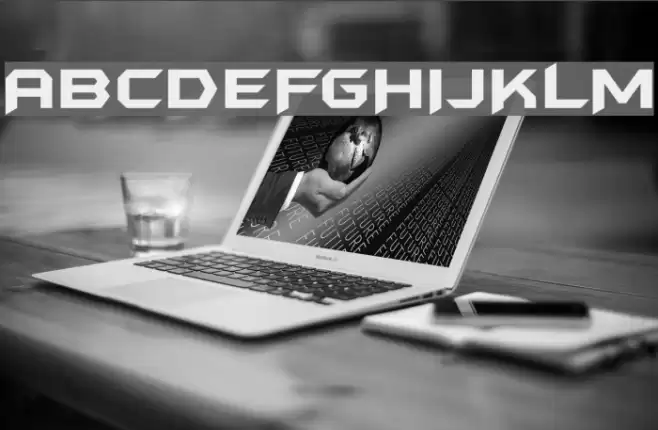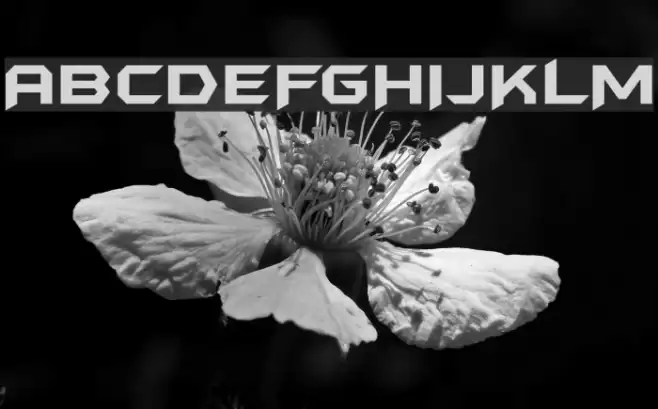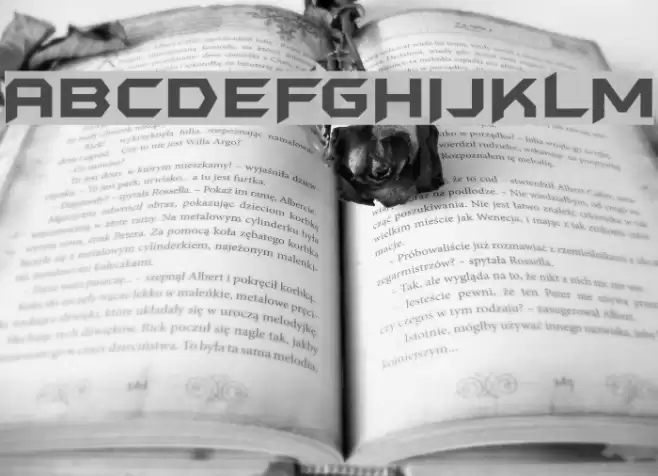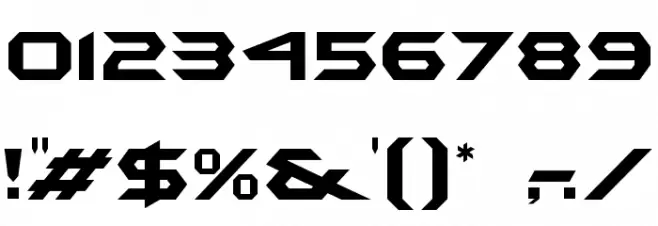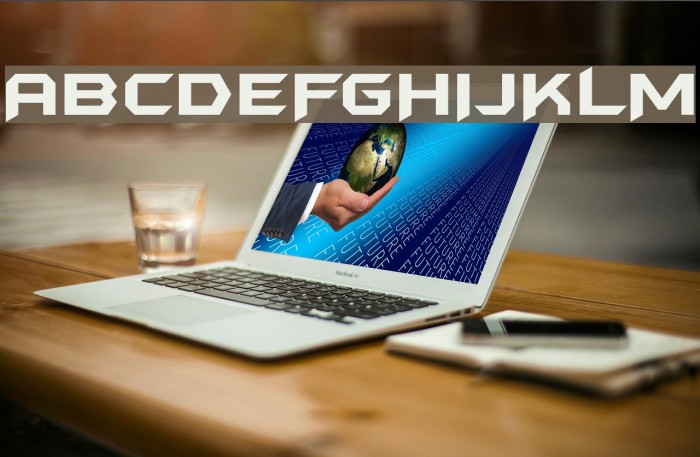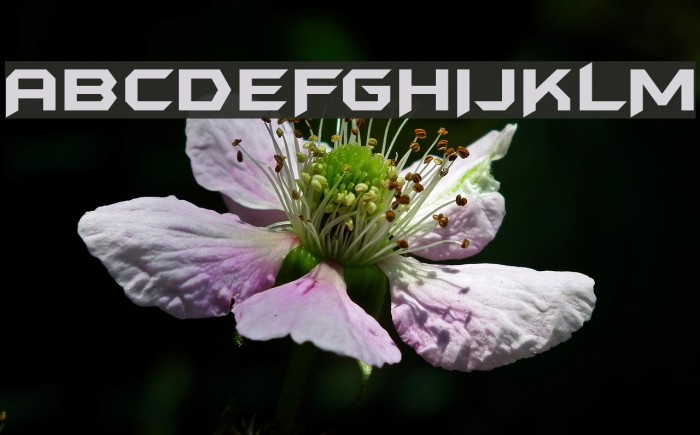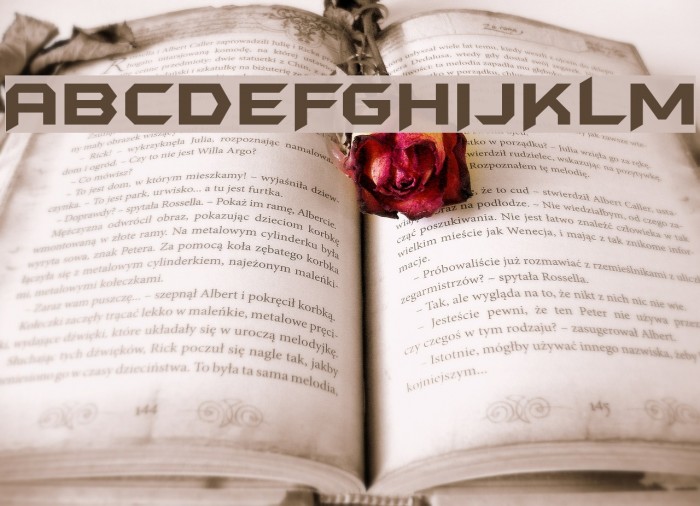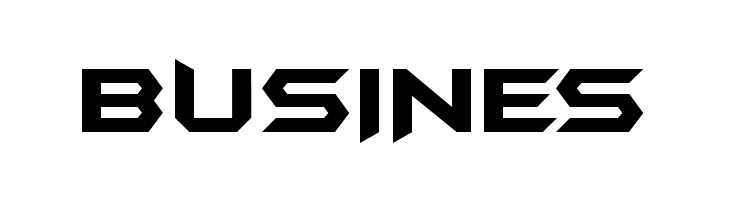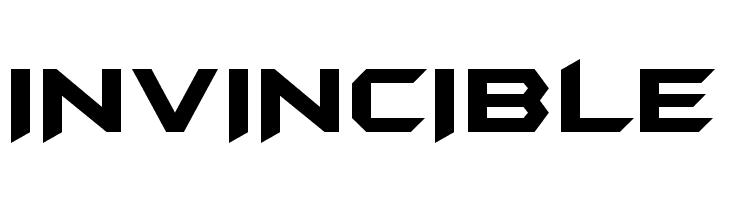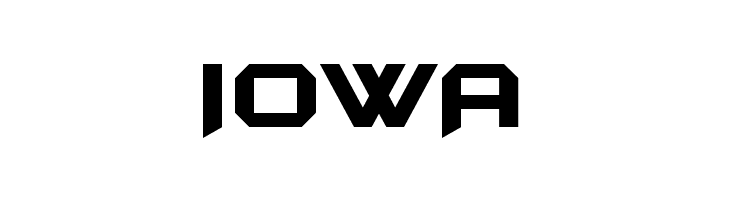
BatmanForeverAlternate Font
BatmanForeverAlternate Description
This font features a bold, angular design with a futuristic and geometric aesthetic. The characters are constructed with sharp edges and distinct cuts, giving them a dynamic and aggressive appearance. The uppercase letters are particularly striking, with a consistent height and width that maintain a uniform look. The numerals and special characters follow the same angular theme, ensuring a cohesive style throughout. This font's unique design makes it ideal for projects that require a modern and edgy feel.
A bold, angular font with a futuristic and geometric design from Futuristic fonts.
- Proposed Projects: Ideal for movie posters, video game titles, branding for tech companies, and any project needing a modern, edgy look.